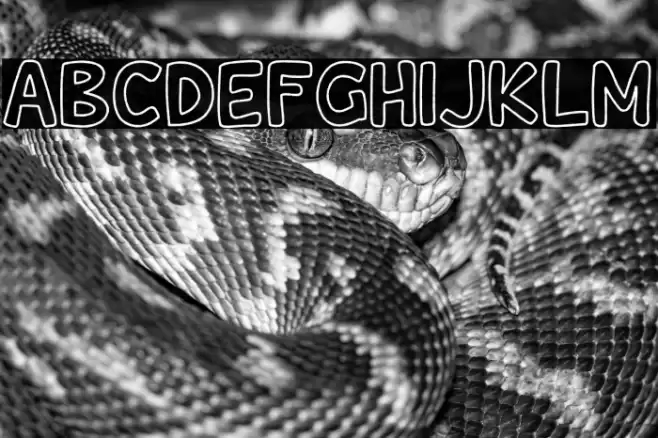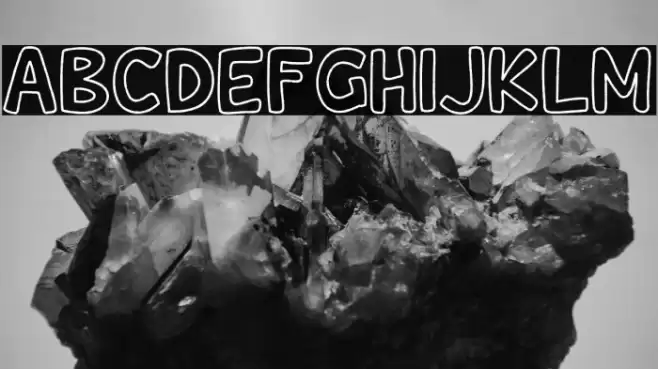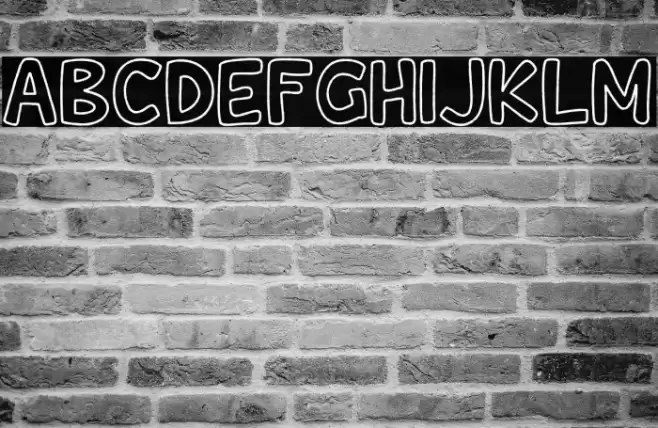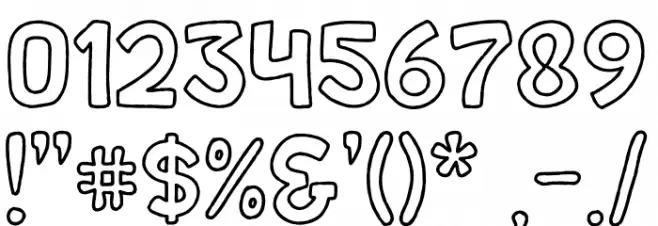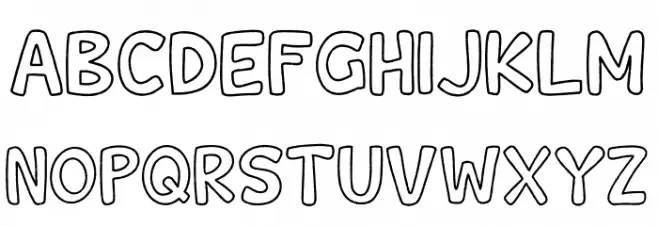
Wishcar Moundy Outline Font
Wishcar Moundy Outline Description
This font features a playful and bold outline style, characterized by its thick, uniform strokes that create a bubble-like appearance. The letters are rounded and slightly irregular, giving them a hand-drawn, whimsical feel. The uppercase and lowercase letters maintain a consistent style, with a slight tilt that adds to the casual and fun aesthetic. The numbers and special characters follow the same design principles, ensuring a cohesive look across all glyphs. This font is ideal for projects that require a lighthearted and approachable vibe, such as children's books, party invitations, or playful branding.
A playful, bold outline font with a hand-drawn, whimsical style from Uncategorized fonts.
- Font: Wishcar Moundy Outline
- Proposed Projects: Ideal for children's books, party invitations, playful branding, and casual posters.
- Overall Style: Playful, Whimsical